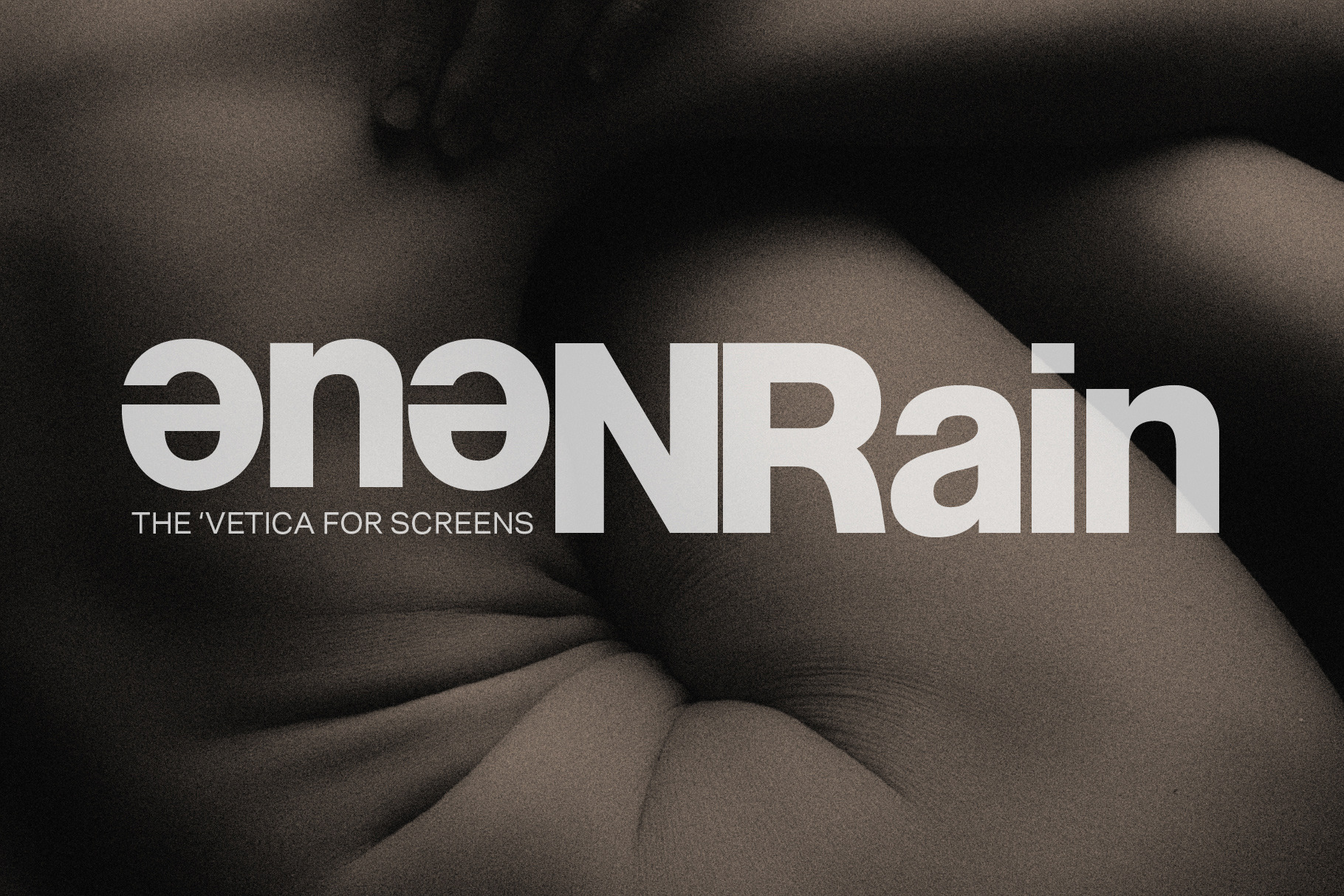
Meet Neue Rain, the ‘vetica for the screen era by Matt Chansky. The font comes in 6 weights – from thin to a heavy-bold + italics of each. 385 glyphs per weight, multilingual, and a selection of special characters. With its high x-height, efficient horizontal spacing, and modern glyphs – Neue Rain is an ideal omnichannel campaign font, offering consistency across online and offline channels. When you want to be future forward, but have your feet firmly in the roots of the ‘vetica look and feel, think Neue Rain. For web design, please obtain a web license. Matt is a Monotype-approved type designer, so you can be assured that this font is of the highest quality. Get Neue Rain at this introductory price.